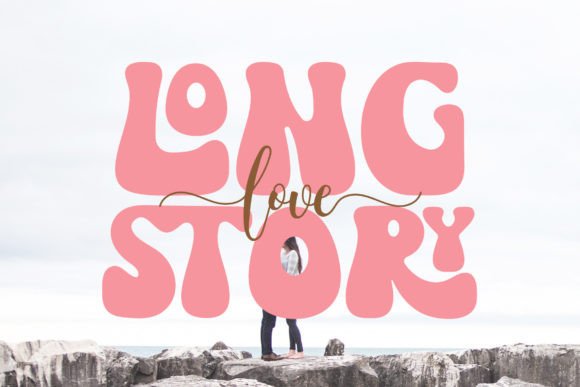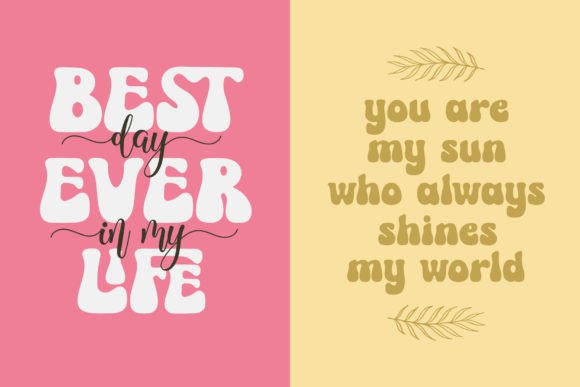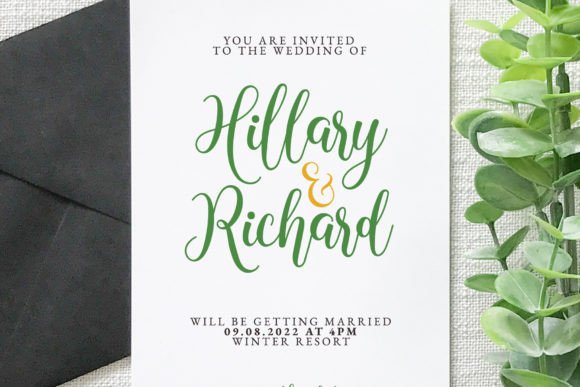
Introduction to Moon and Latte Font Font
Fonts play a crucial role in design, and the Moon and Latte Font font is a typeface that brings both character and versatility to any project. Whether you’re working on a branding project, a website, or a print design, the Moon and Latte Font font offers a unique style that can elevate your work.
Moon and Latte is a modern and exquisite duo font that is the perfect pairing of a script and display fonts.
The script font features elegant, flowing letterforms, while the display font boasts bold, eye-catching shapes Use them separately or together to create stunning designs for branding, packaging, and more.
Key Features of Moon and Latte Font Font
Why Choose Moon and Latte Font Font?
The Moon and Latte Font font is more than just a typeface – it’s a design tool that helps you communicate your message with style and clarity. Its unique character set and versatile design make it suitable for a wide range of applications, from elegant invitations to bold headlines.
With its carefully crafted letterforms and balanced proportions, the Moon and Latte Font font ensures readability and visual appeal across all mediums.
What makes Moon and Latte Font font special?
The Moon and Latte Font font stands out with its unique design, exceptional readability, and versatility across various design applications.